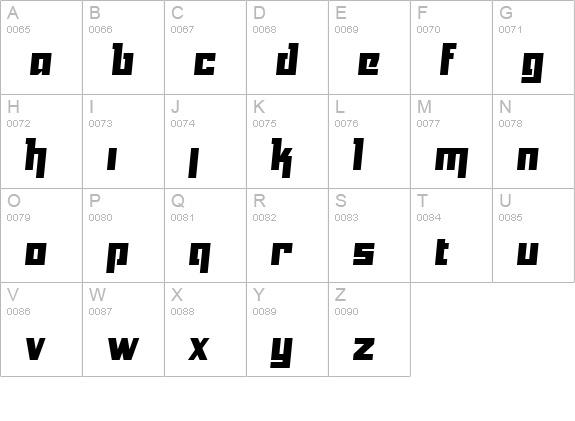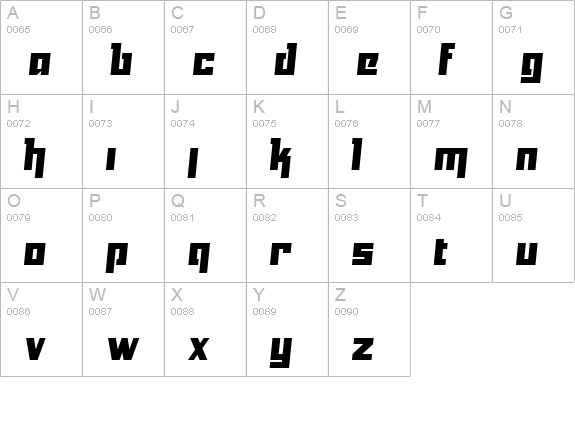
Yukarimobile Font Details
Introducing Yukarimobile font, a sleek and modern typeface designed for digital interfaces and mobile applications. With its clean lines and easy readability, Yukarimobile is the perfect choice for creating user-friendly designs that captivate and engage your audience. This versatile font is available in a range of weights and styles, making it suitable for a variety of design projects. Whether you're designing a mobile app, website, or digital product, Yukarimobile font will add a touch of sophistication and professionalism to your work. Best of all, Yukarimobile font is completely free to download at FontsMarket.com. Simply visit the website to access this stylish typeface and take your design projects to the next level. Download Yukarimobile font today and elevate your designs with its modern and elegant aesthetic.